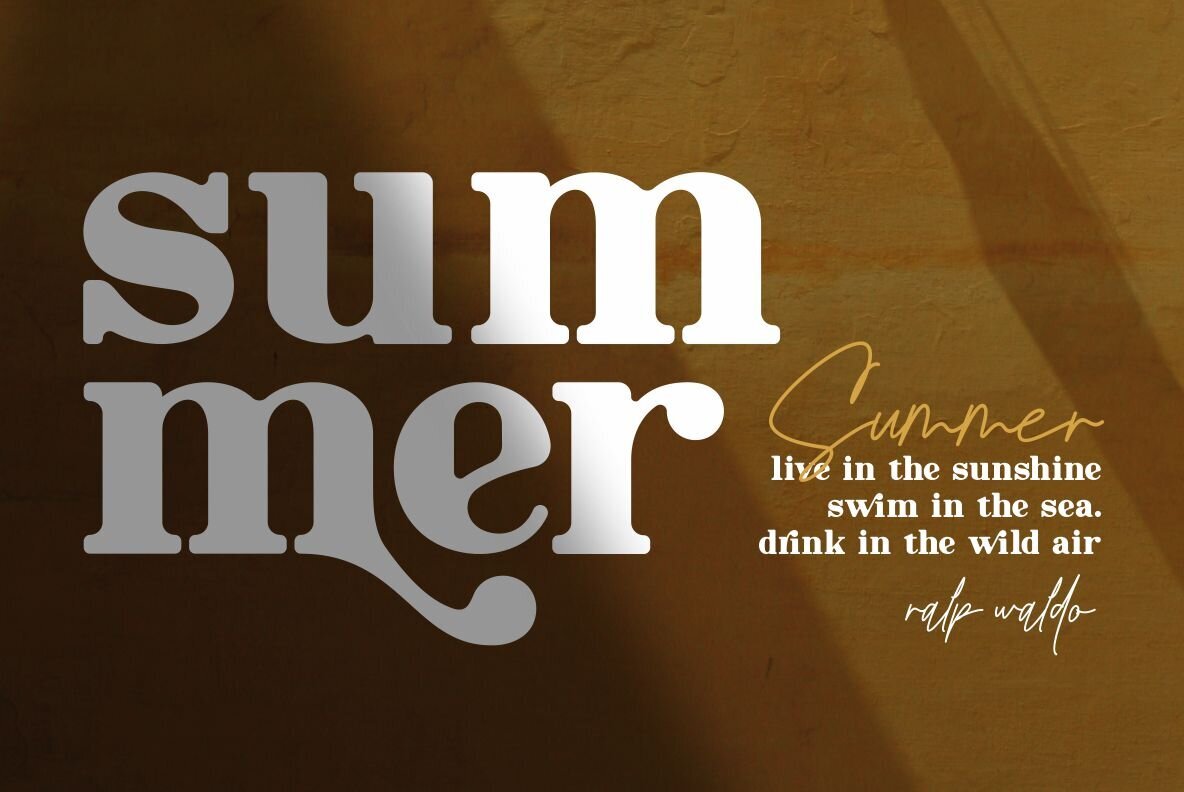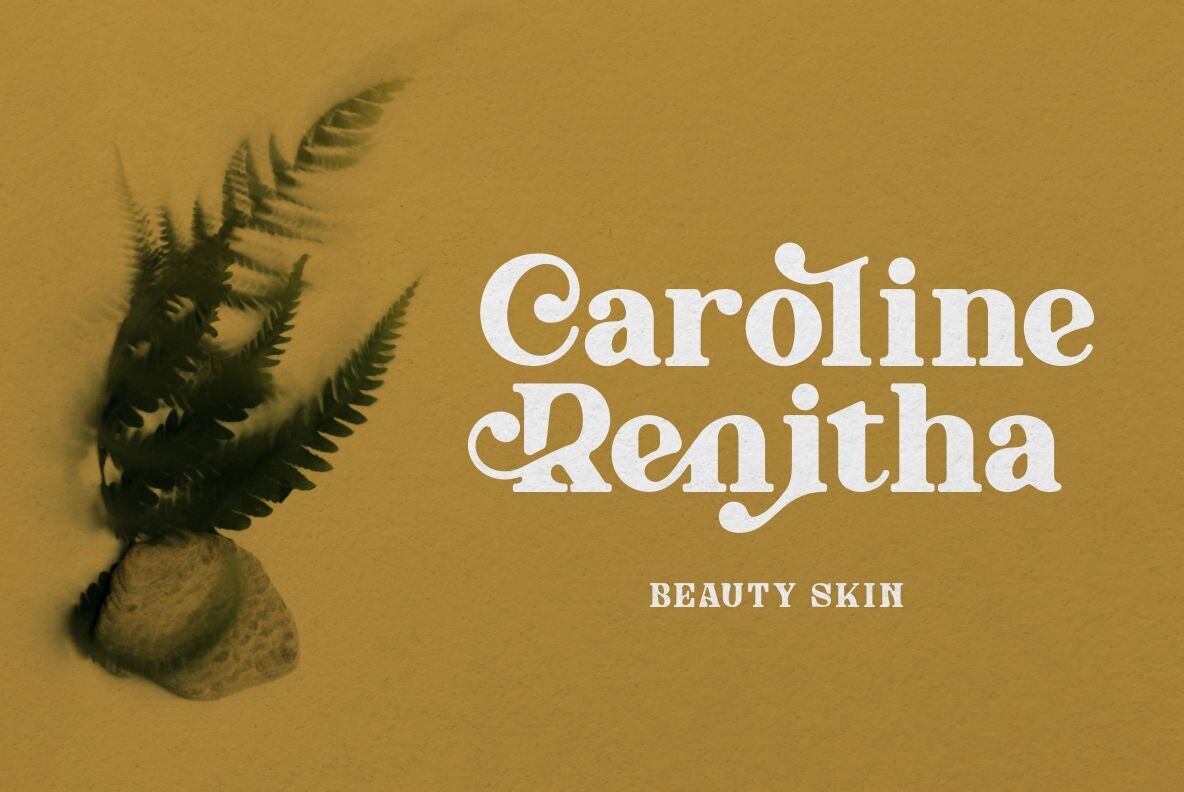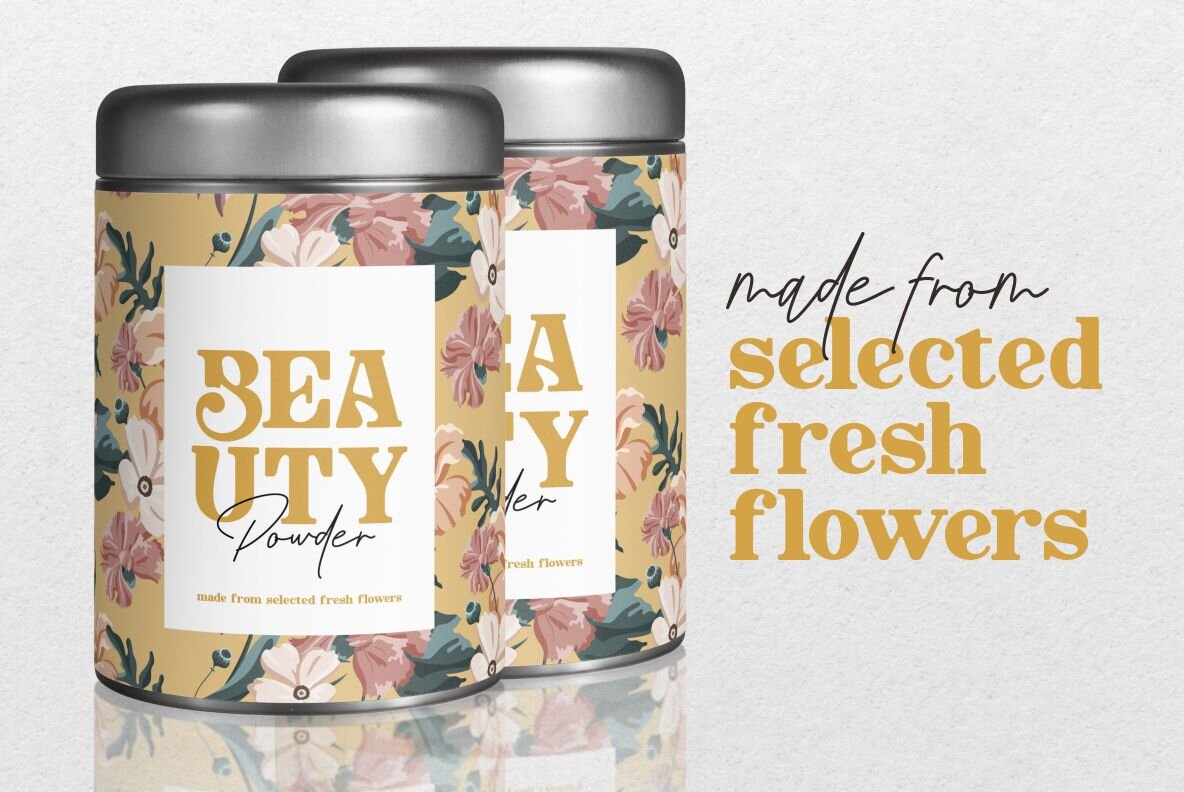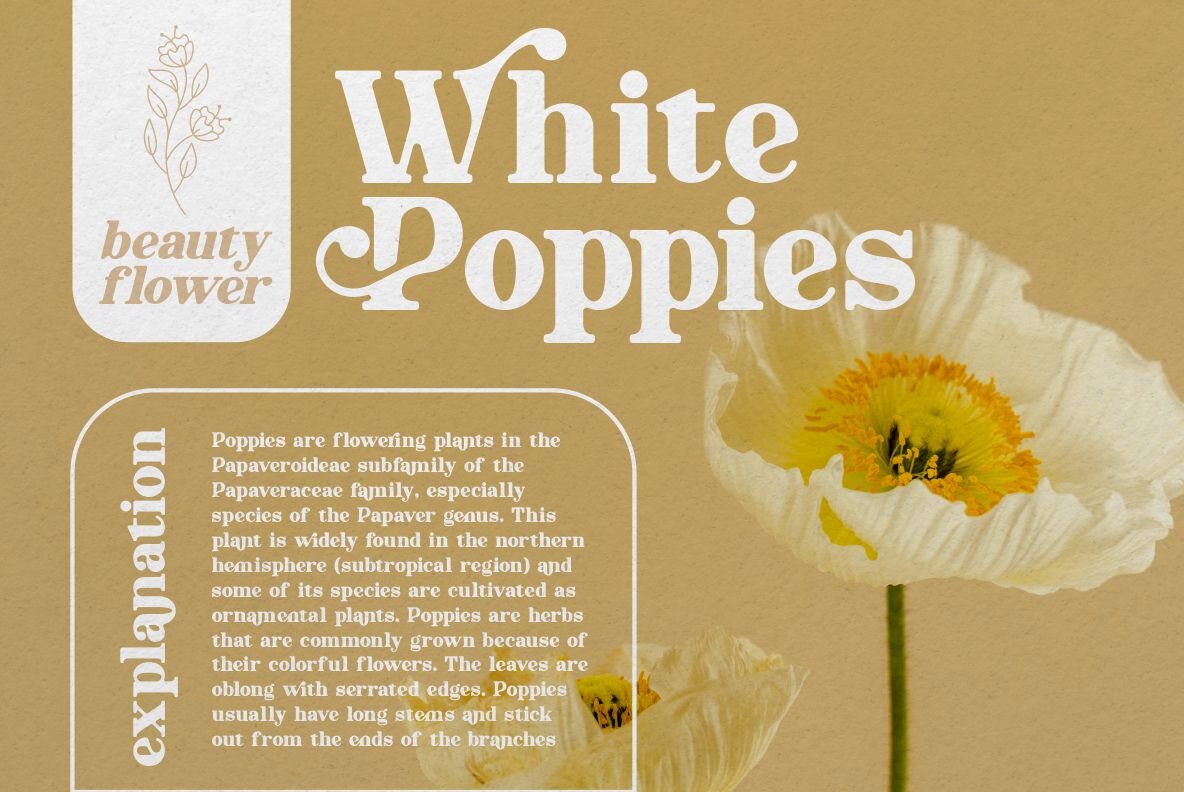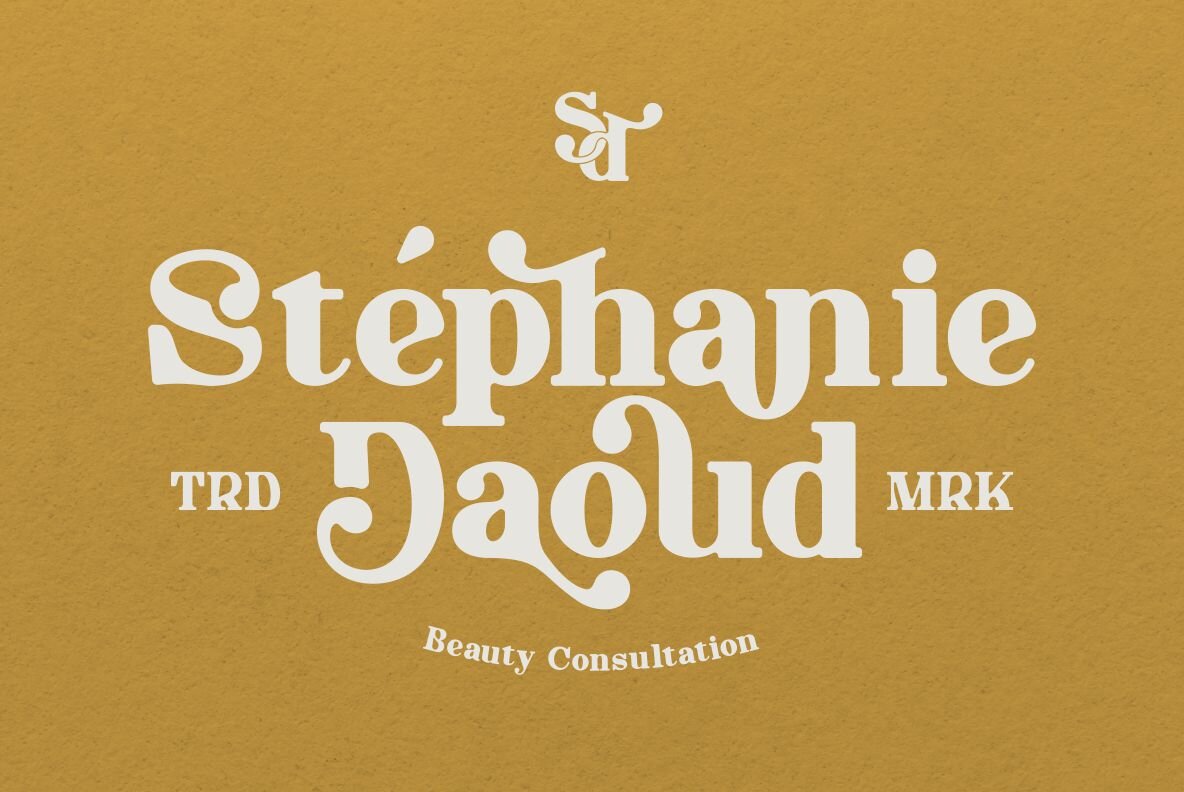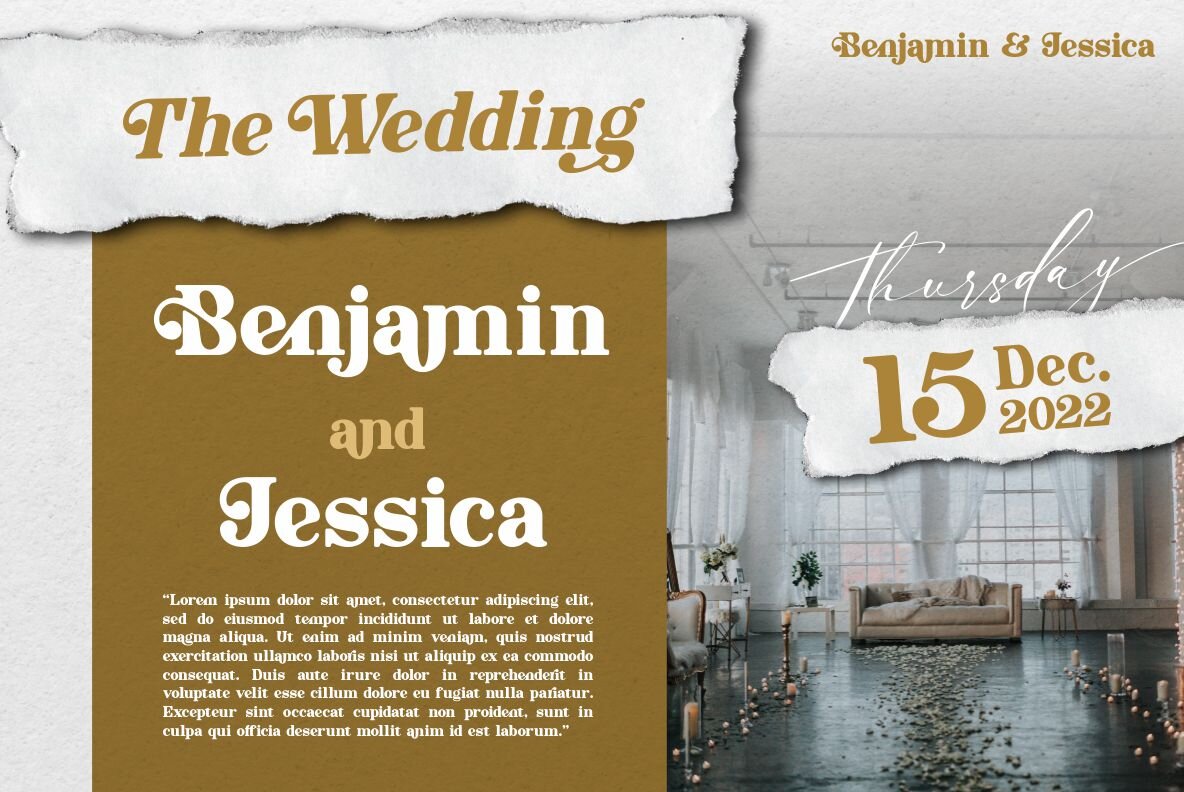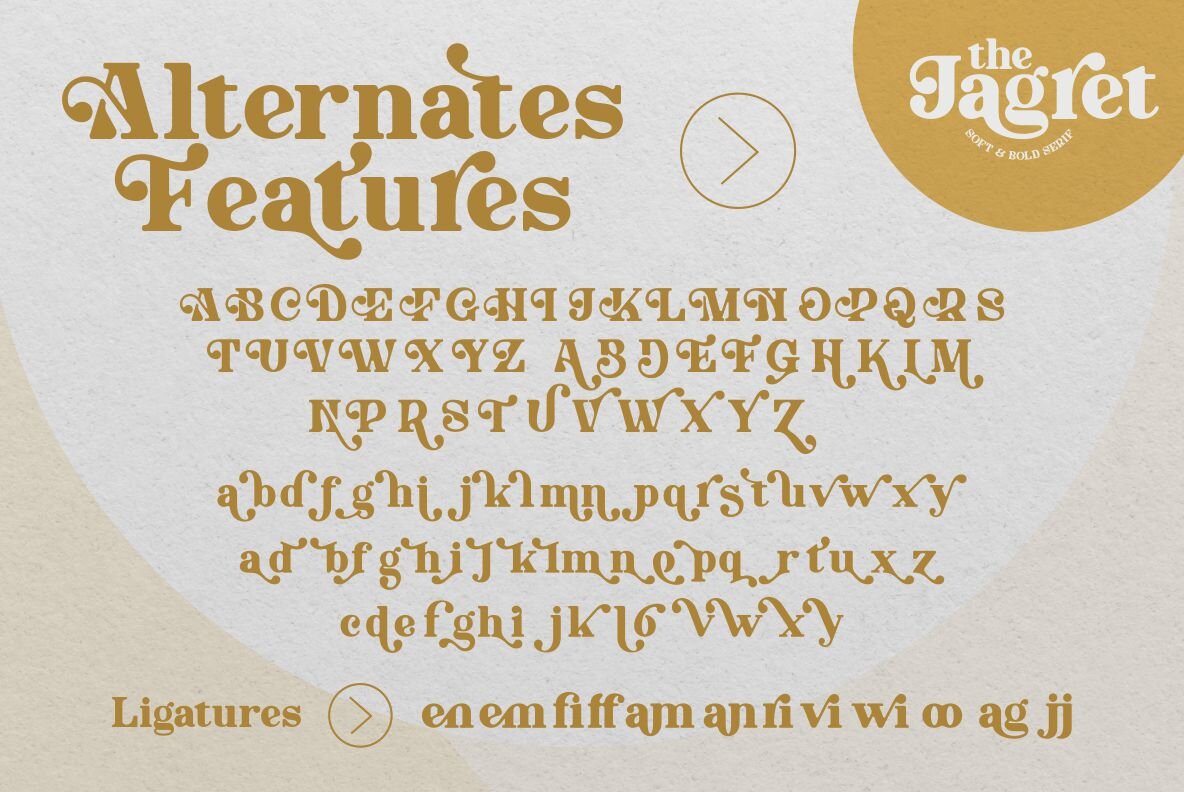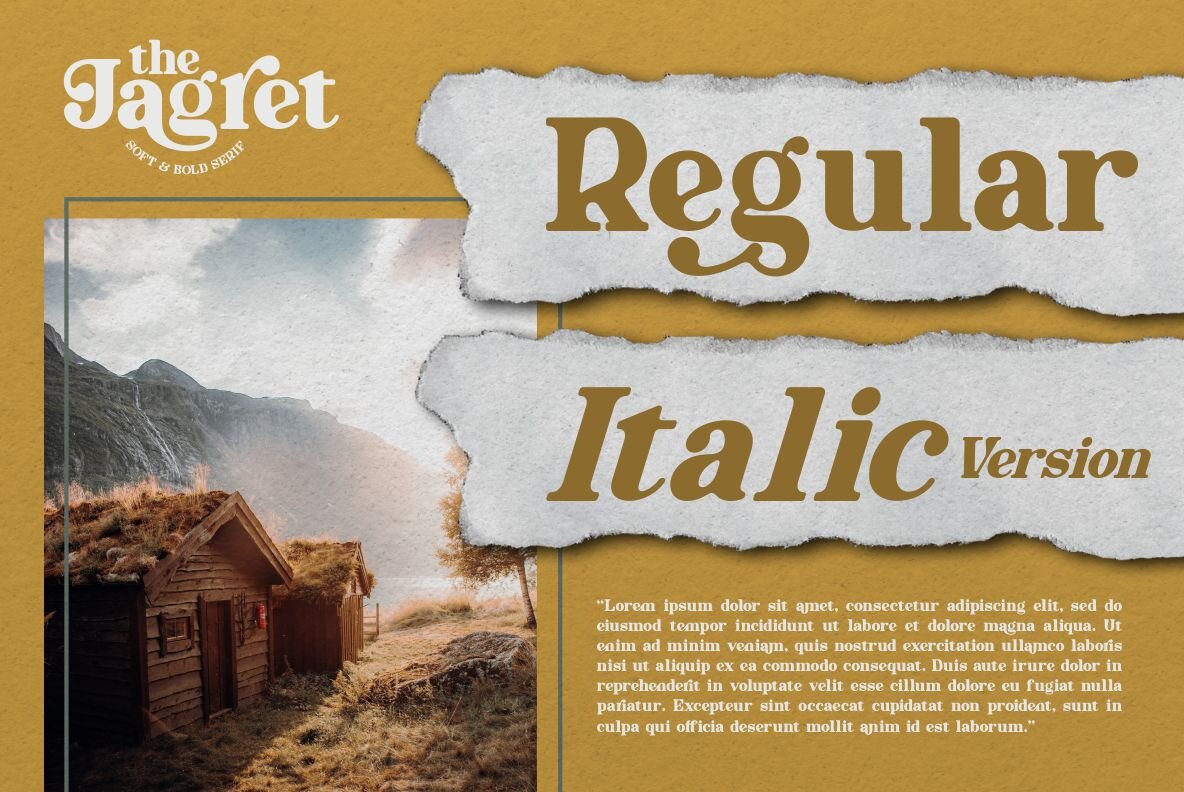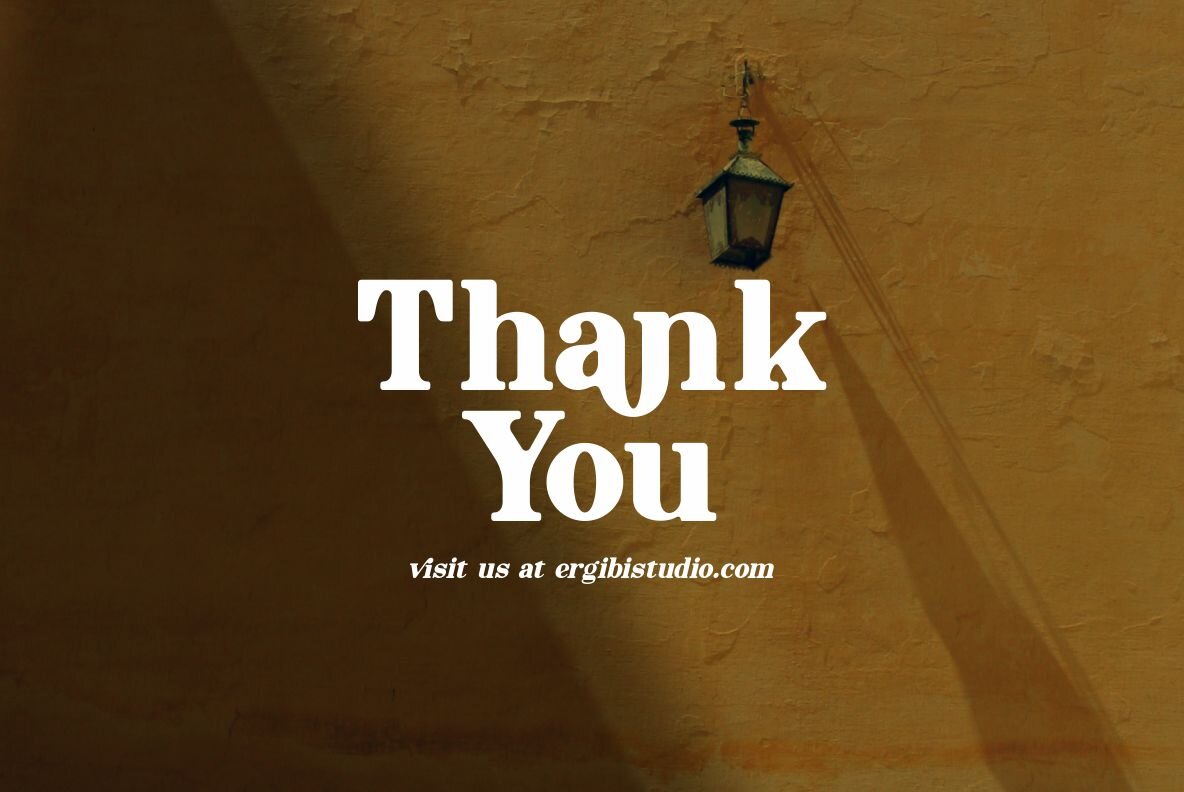
Jagret Font
Jagret commands attention with its soft yet bold design, offering a distinctive appearance that sets it apart from ordinary sans serifs. Ideal for making striking statements, this typeface is perfect for headlines, logos, and a myriad of creative design projects. Whether you're crafting for coffee shops, restaurants, or weddings, Jagret brings elegance and visibility to any setting.Jagret: A Unique Soft and Bold Serif
Beyond its primary uses, this typeface excels in a variety of applications, including posters, packaging, T-shirts, magazine headers, signs, and postcards. Its versatility ensures it complements every project seamlessly, enriched by an italic version that adds a graceful touch to your compositions.Features